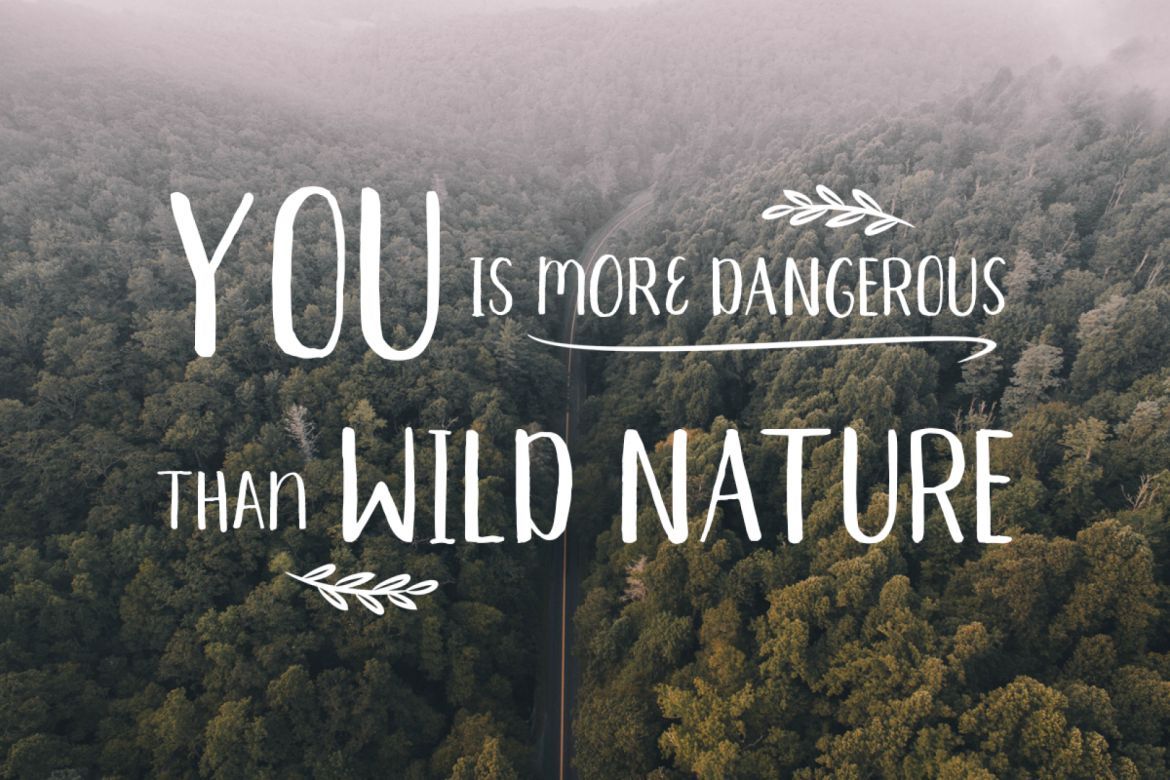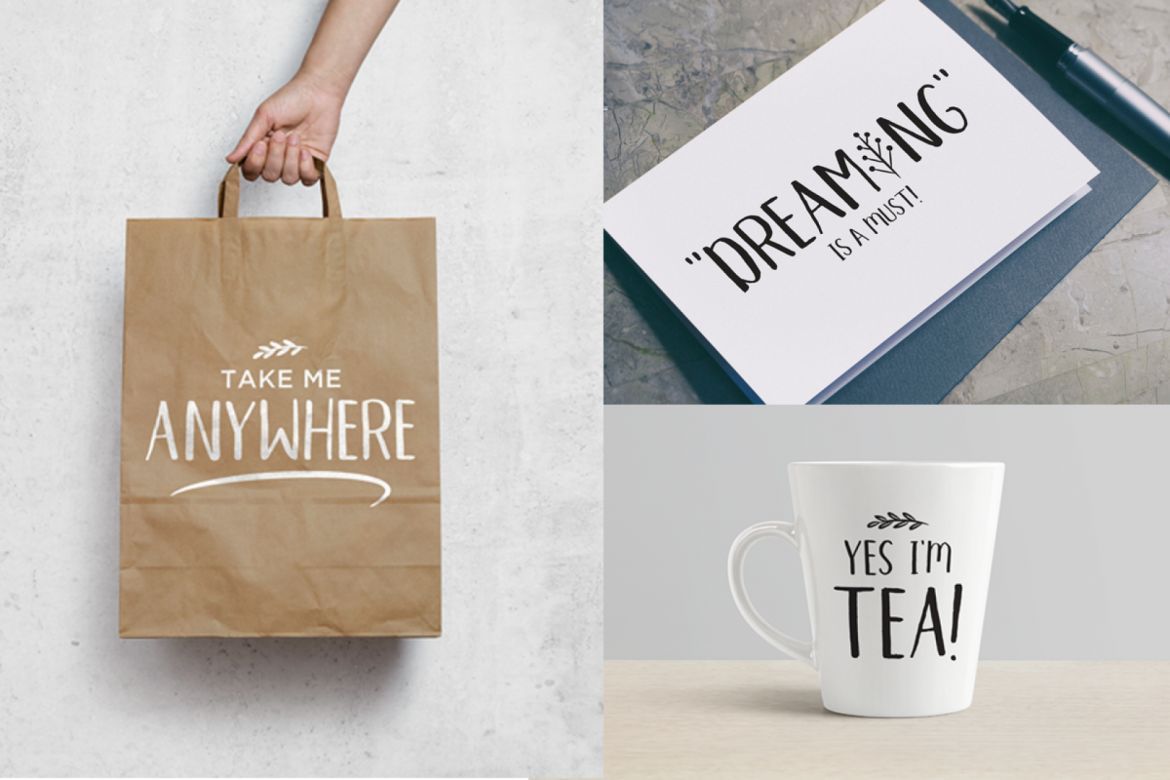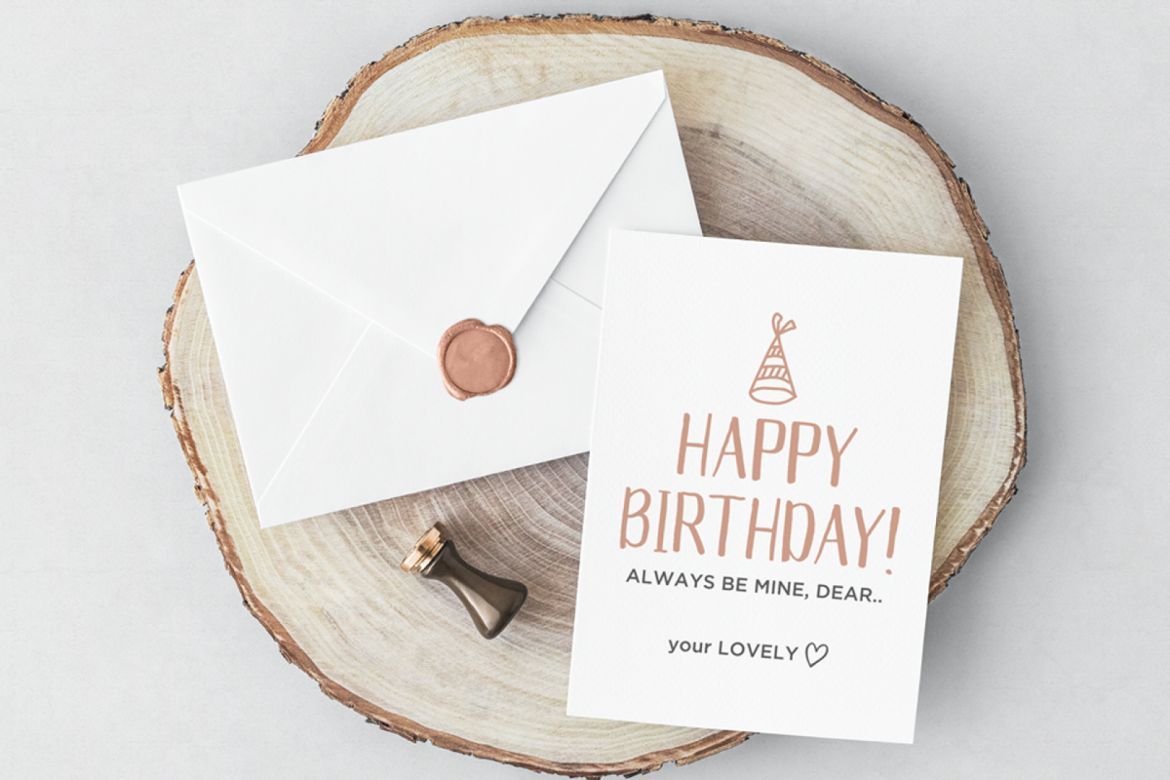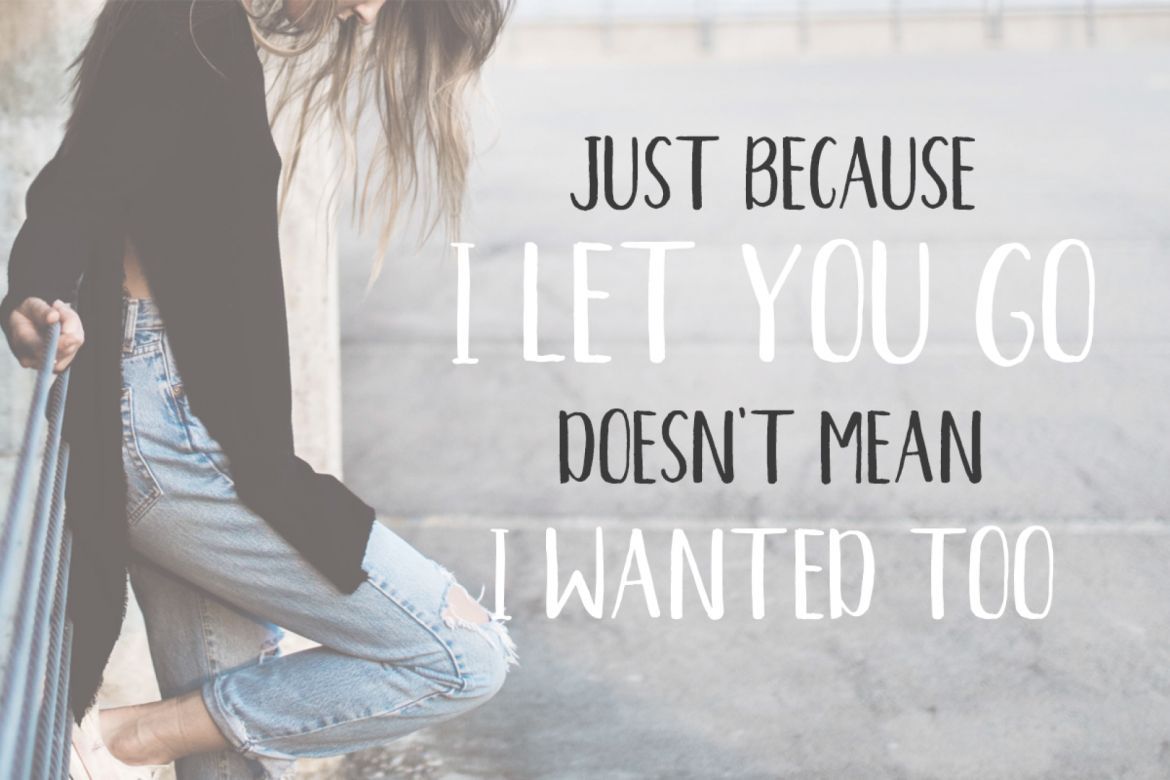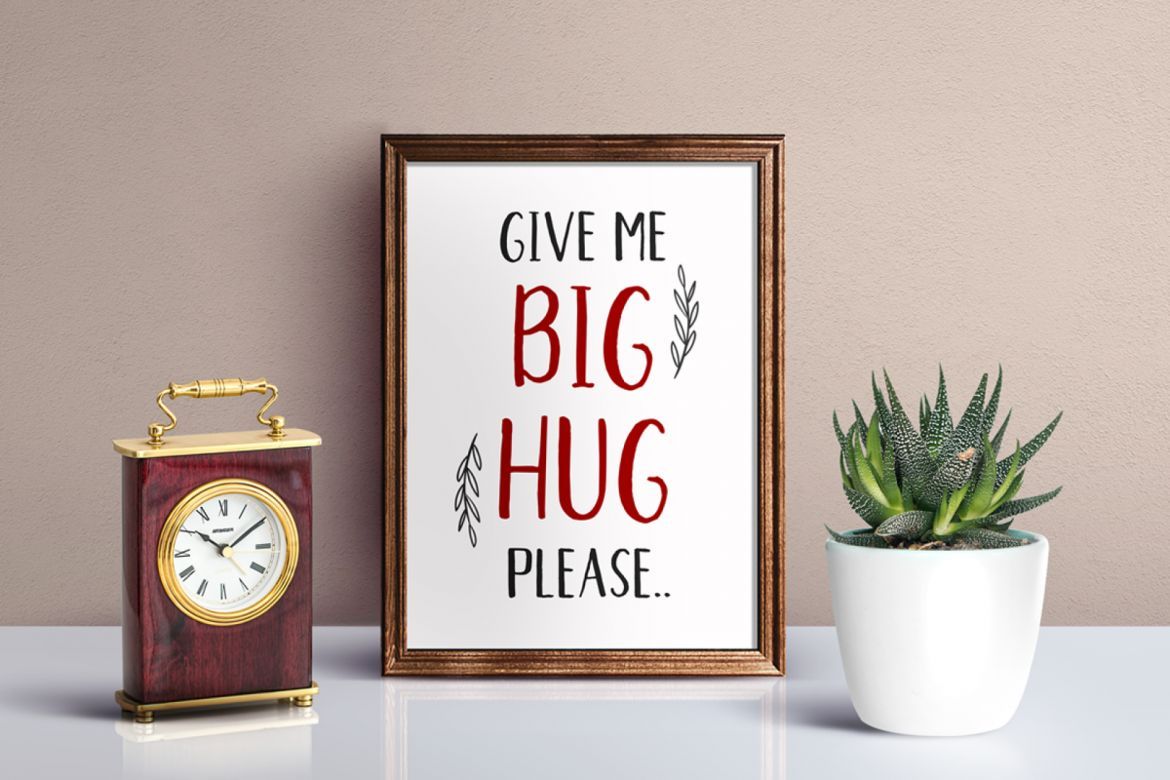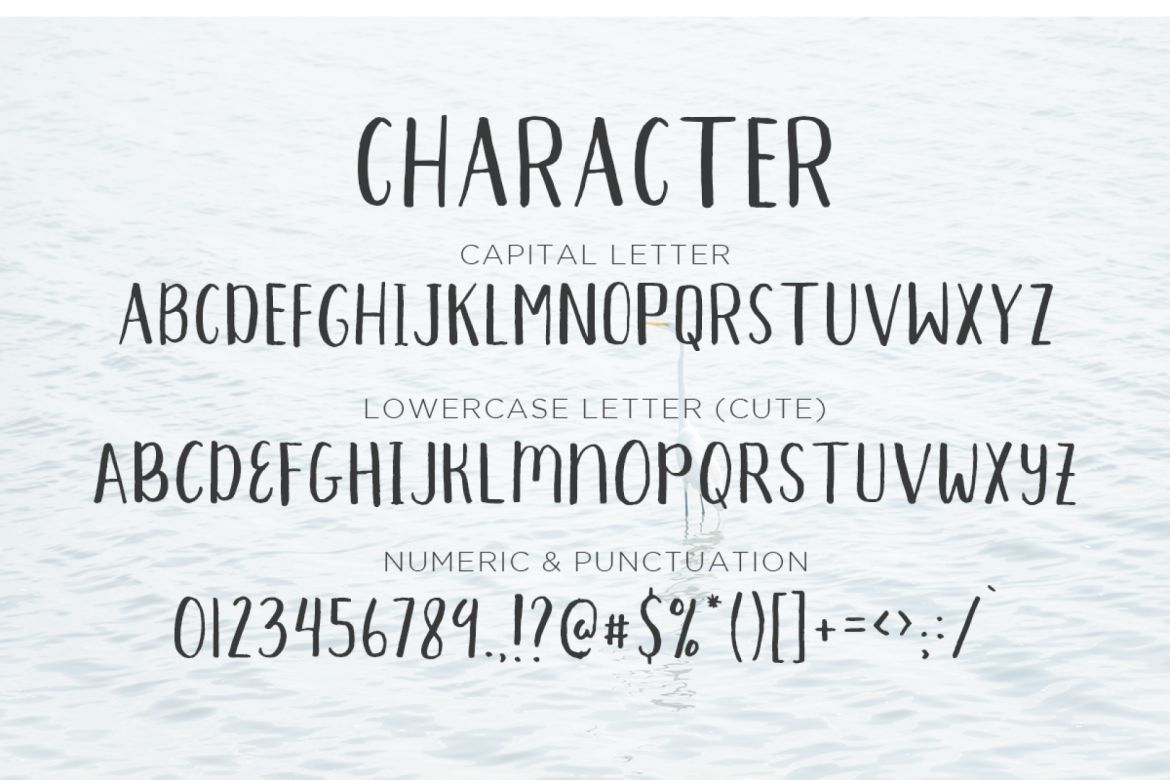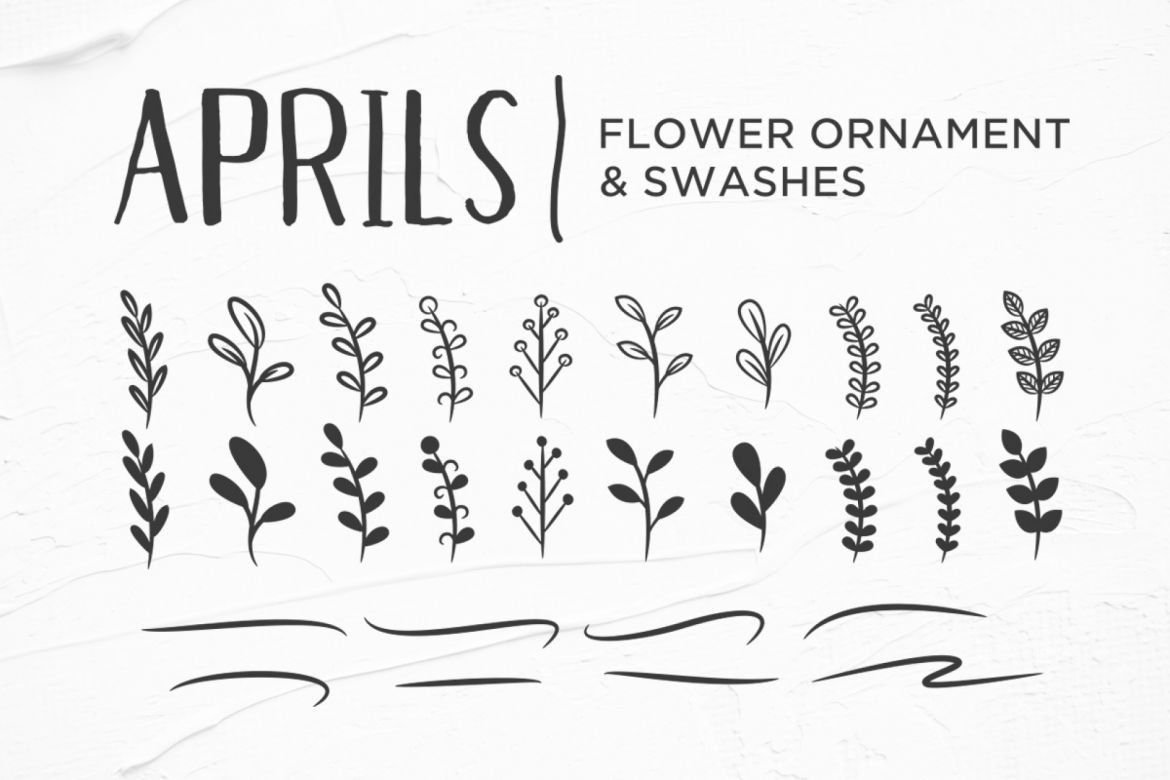
Aprils - Sans Handdrawn Font
Introducing! Aprils Handdrawn Font
Aprils is unique font, which all letters in all caps, in lowercase letters i make a cute version.
• extras leaf ornament